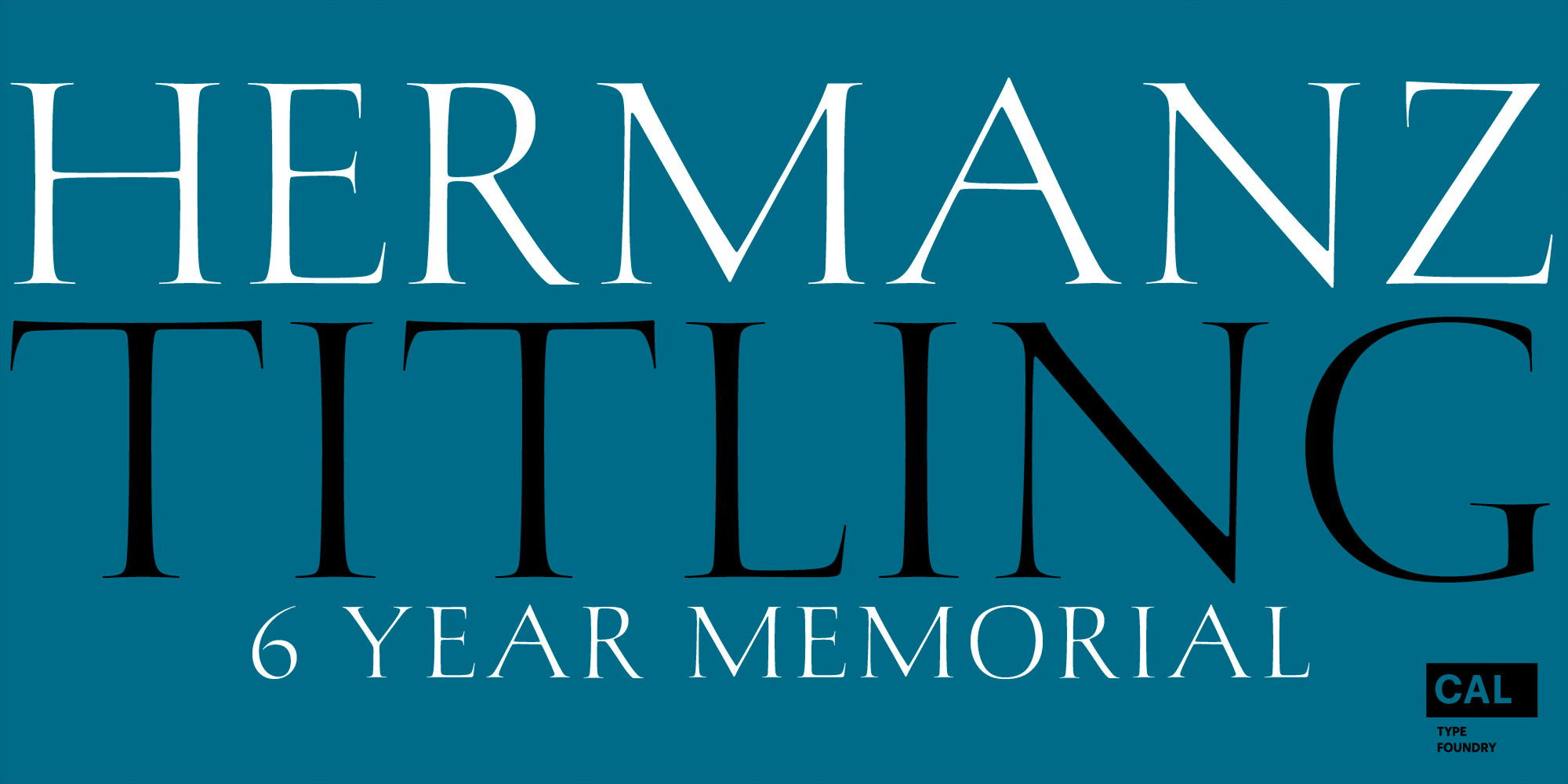
Hermanz Titling Font is excellent for luxury brand headlines, premium product packaging, high-end magazine covers, fashion campaign titles, architectural signage, awards ceremonies, corporate presentations, elegant wedding invitations, art gallery exhibitions, and sophisticated advertising campaigns.
What makes Hermanz Titling Font exciting is its striking combination of classical elegance and contemporary sophistication that commands attention while maintaining refined taste. This typeface features bold, commanding letterforms with distinctive character details that create powerful visual impact perfect for headline applications. The font's authoritative presence and luxurious aesthetic make it ideal for brands seeking to convey prestige, exclusivity, and premium quality in their communications.
Hermanz Titling Font family includes carefully crafted weight variations: Regular, Medium, Bold, and Black options, each designed specifically for display and titling purposes. The family features extended character sets with alternative letterforms and special ligatures that enhance its versatility for premium branding applications.
Luxury brands and high-end agencies consistently choose Hermanz Titling Font Free Download for projects requiring commanding presence and sophisticated appeal. The font's dramatic character excels in large-scale applications where maximum visual impact is essential, making it perfect for billboards, magazine covers, and premium brand identities. Whether you're creating luxury packaging, editorial headlines, or exclusive event materials, this distinguished typeface delivers the elegance and authority that elevates your design to premium status.